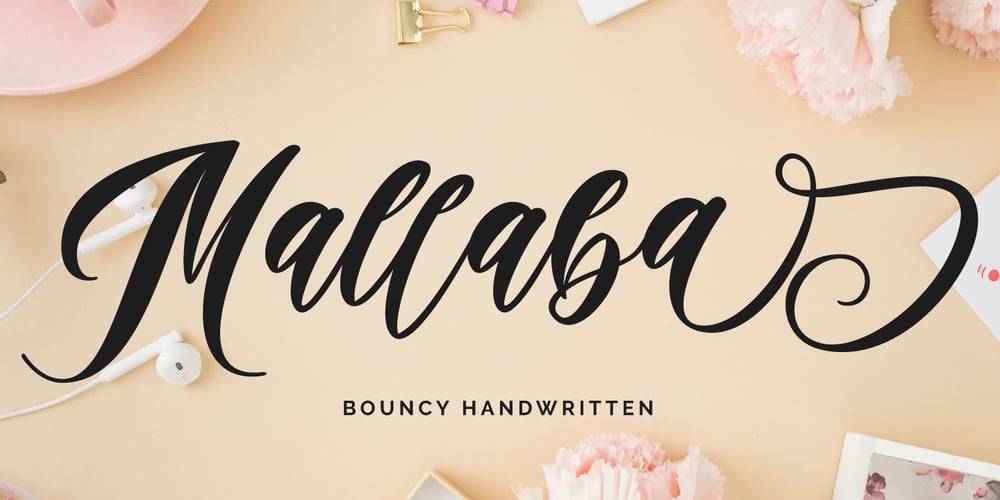
Mallaba Font Family was designed by Vava Aryanto and published by FallenGraphic. Mallaba contains 1 styles and family package options. Mallaba is an amazing bouncy handwritten brush font. Made in naturally handwriting, this font will make your design more beautiful and powerful. Mallaba is suitable for any design like branding, quotes and more. I hope you enjoy it !! Thanks for visiting and downloading my font!Mallaba offers you: Accents (Multilingual Characters) PUA encoded Numerals and Punctuations (OpenType Standard) Many of alternates